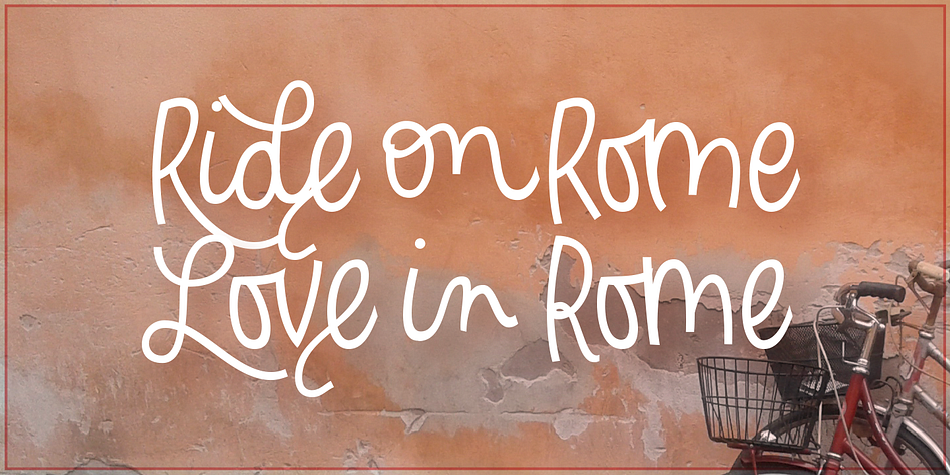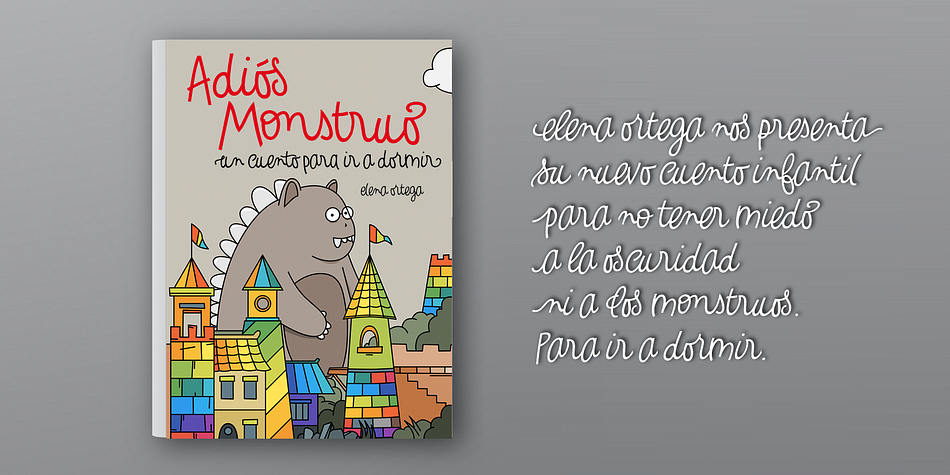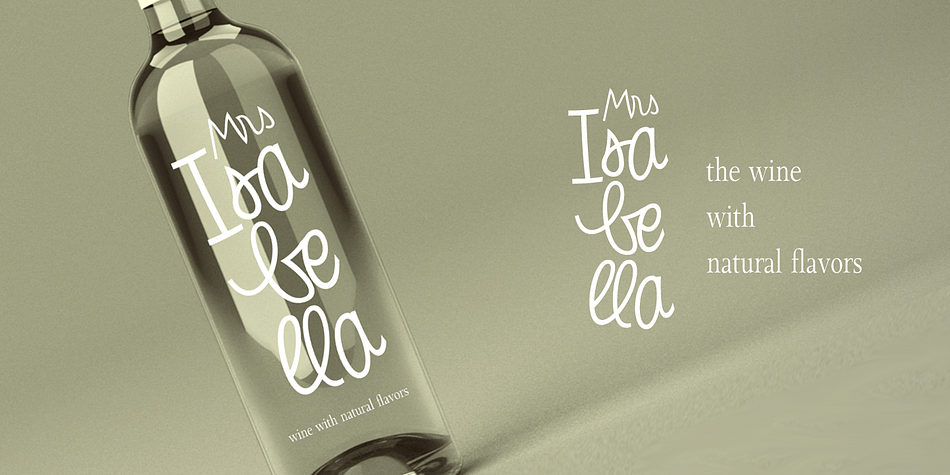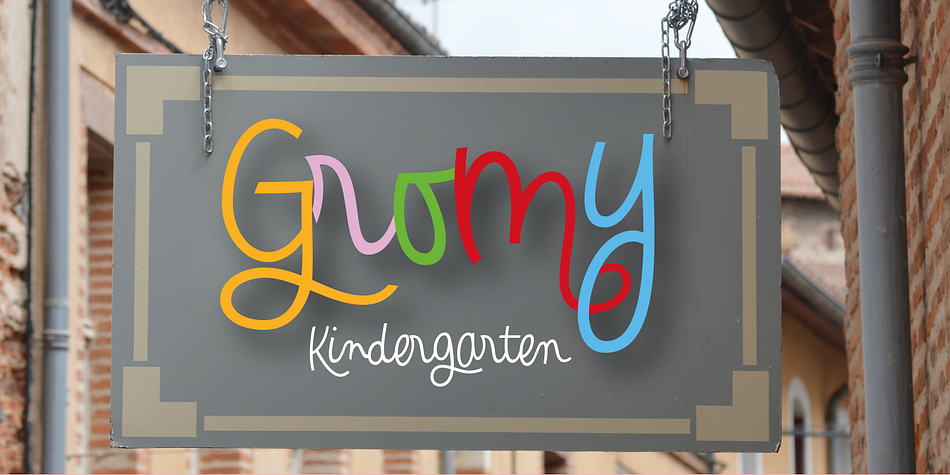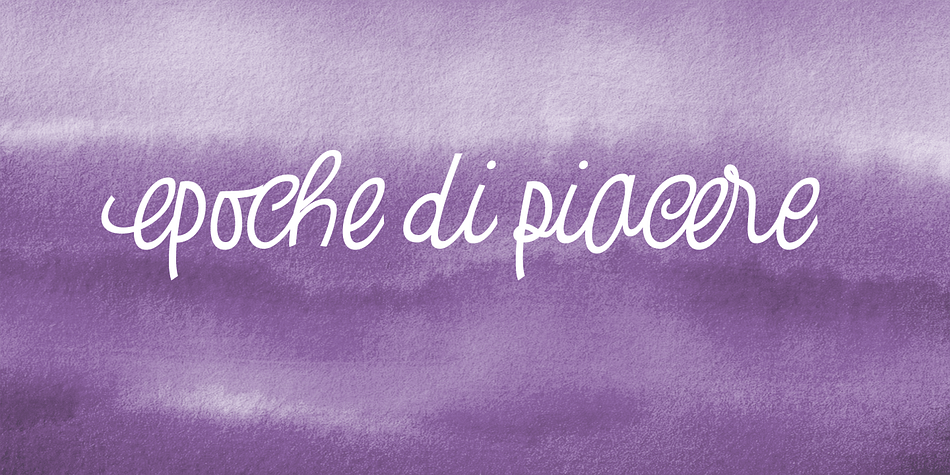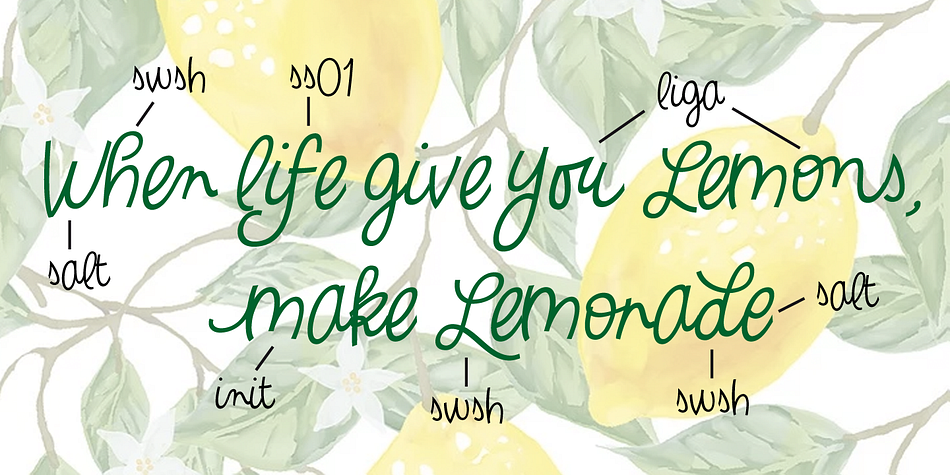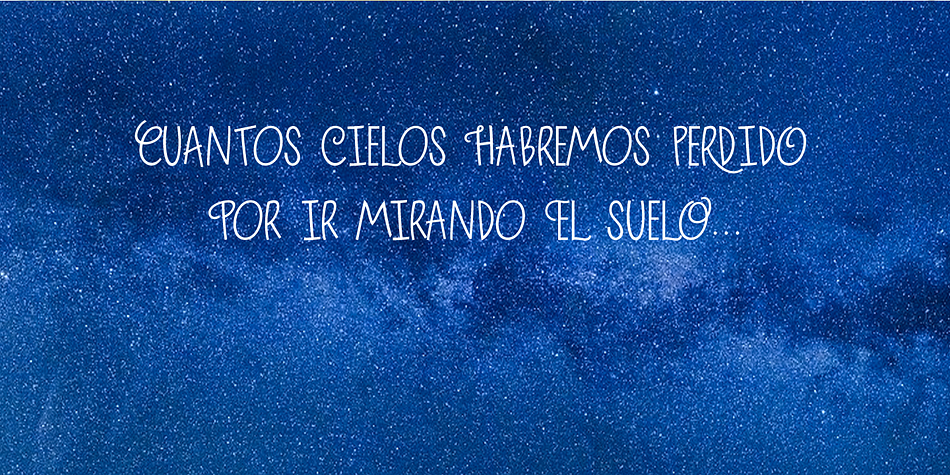
Designed by Carine de Wandeleer, Gromy is a hand drawn and kids font family. This typeface has two styles and was published by Eurotypo.
Gromy is a family of fonts formed by Gromy Regular and Gromy Italic. It’s a very casual, informal and friendly calligraphic typeface.
Gromy font comes with 561 glyphs, with OpenType features, swashes for all glyphs, stylistics sets, stylistics alternates and a lot of ligatures to play with your texts. This OpenType features may only be accessible via OpenType-aware applications, or the Character Map to view and copy any of the extra characters to paste into your favourite text editor/app.
Gromy can be used in works that require an informal and original fee, children’s books, wedding invitations, greeting cards, posters, labels, t-shirt design, in ink or water - colour based designs, fashion, magazines, food packaging and menus, book covers and whatever your imagination holds!
Designer | Carine de Wandeleer |